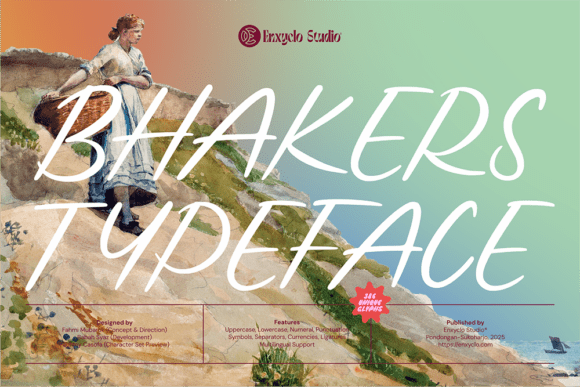
Breathe Life into Your Designs with Bhakers Font
Do you remember the thrill of creating a new project, pouring over ideas, and finally landing on the perfect concept? For designers, that moment is what drives us to push the boundaries of creativity and bring our visions to life. And that’s exactly where Bhakers Font comes in – a spirited and dynamic brush font designed to infuse audacious character into your artistic inspirations.
Bhakers Font is a harmonious blend of old-world charm and cutting-edge design, making it the perfect partner for defining branding and logo design, creating striking social media graphics, and enlivening poster & flyer titles. With its 386 unique glyphs in both uppercase and lowercase, numerals, punctuation, symbols, multilingual characters, and currency support, Bhakers Font is a game-changer for designers looking to elevate their work and make a lasting impression.
- Unique Characteristics: This font features a unique blend of traditional and modern elements, with intricate details and ornate designs. It includes a wide range of glyphs and characters, making it suitable for various languages and scripts.
Bhakers Font Review
First off, I have to say that I was initially drawn to Bhakers Font due to its unique and quirky style. ✨ The font’s eclectic mix of sans-serif and script elements makes it perfect for creating a statement or adding some personality to your designs. I’ve found it to be particularly effective in headings and titles, where its bold and playful feel really shines.
One of the things that works well with Bhakers Font is its versatility. ✨ It can be used in a variety of contexts, from modern and sleek designs to more traditional or vintage-inspired projects. It’s also highly legible, making it suitable for body text as well as headings.
- ⚠️ The font can be a bit too playful for more formal or corporate designs. In these cases, it may come across as unprofessional or immature.
- ⚠️ Bhakers Font may not be the best choice for text-heavy projects, as its unique style can be distracting and difficult to read in large quantities.
Overall, I think Bhakers Font is a great addition to any designer’s toolkit. While it may not be suitable for every project, its unique style and versatility make it a valuable resource for designers looking to add some personality to their work.
Tips for Getting the Most Out of Bhakers Font
Here are some tips to get the most out of Bhakers Font:
- Use Bhakers Font for headings and titles to add a touch of elegance.
- Combine Bhakers Font with other fonts to create a unique and interesting look.
- Experiment with different font sizes and styles to add depth and visual interest.
Bhakers Font is commonly used for:
- Wedding invitations and station
Alternatives to Bhakers Font for Designers
Great Vibes is a modern, elegant script font that works well for titles and headings. It has a relaxed feel, making it suitable for creative and artistic projects.
Comparison to Bhakers Font: While both fonts have a similar elegant feel, Great Vibes is more modern and relaxed, whereas Bhakers Font has a more vintage and classic look.
Pacifico is a beautiful, cursive script font that is perfect for adding a touch of elegance to any design. It works well for headings, titles, and even body text.
Comparison to Bhakers Font: Pacifico has a more flowing and organic feel compared to Bhakers Font, which has a more structured and classic look.
Carolyna Pro is a luxurious, elegant script font that is ideal for high-end designs. It works well for titles, headings, and even body text, and is perfect for creating a sophisticated and refined look.
Bhakers Font is available in OpenType (OTF) and TrueType (TTF) formats. The OTF format is recommended for professional use, as it offers more advanced typographic features and better support for complex scripts.